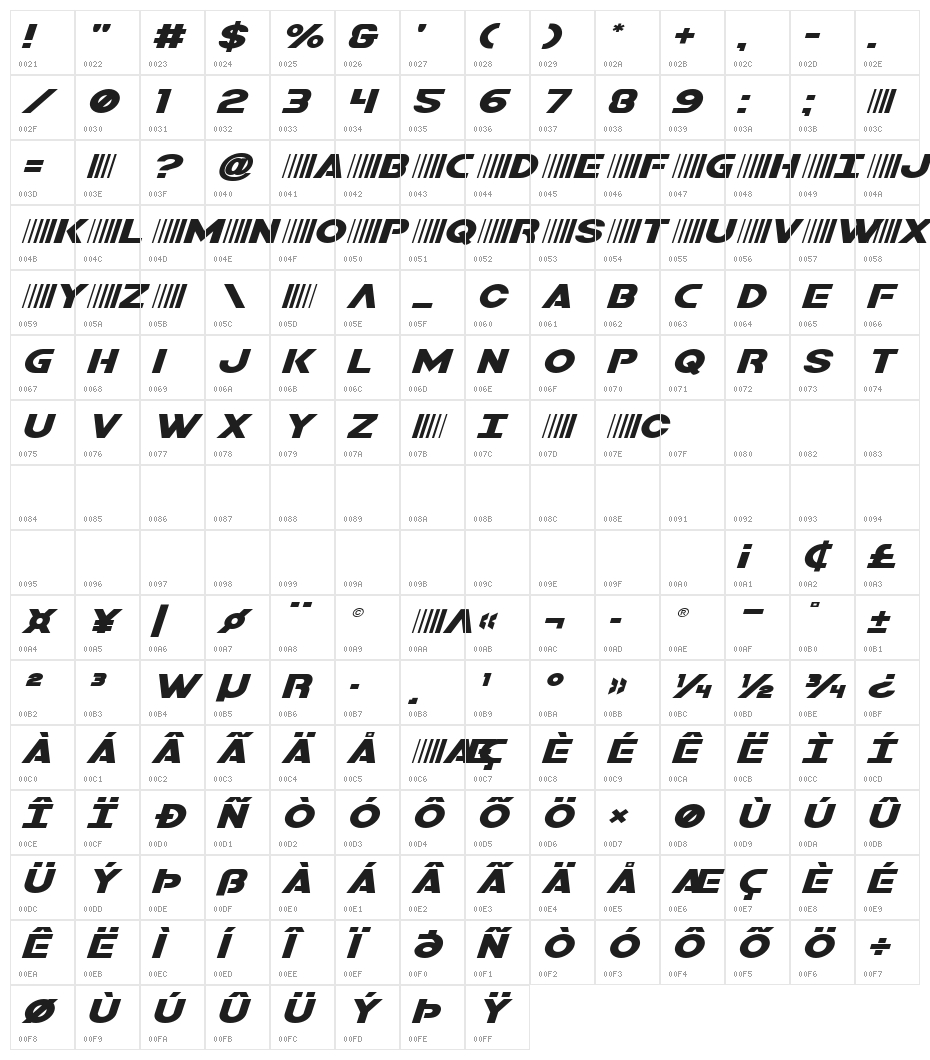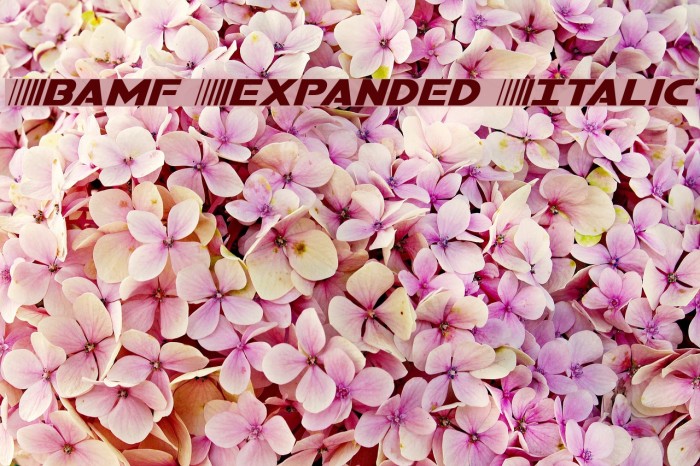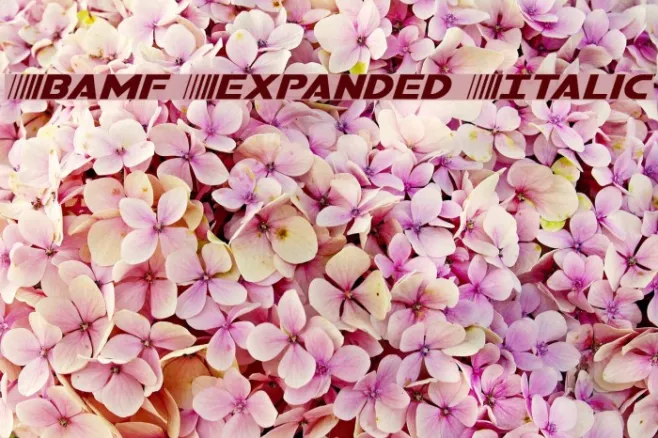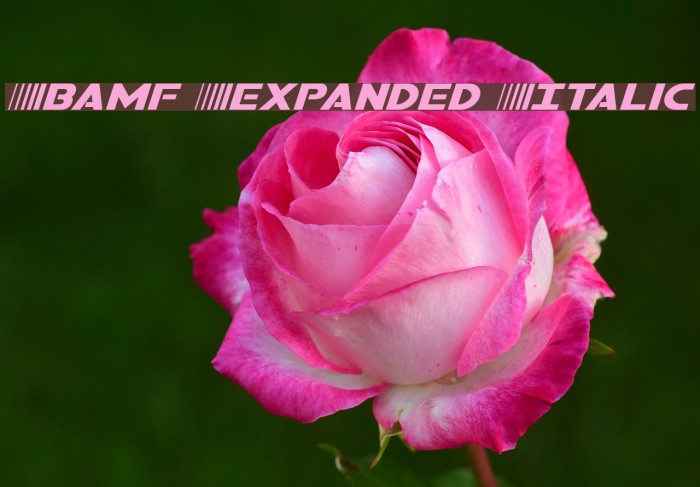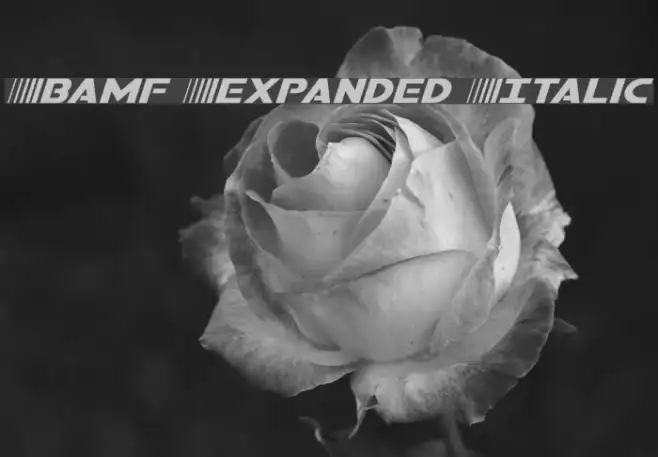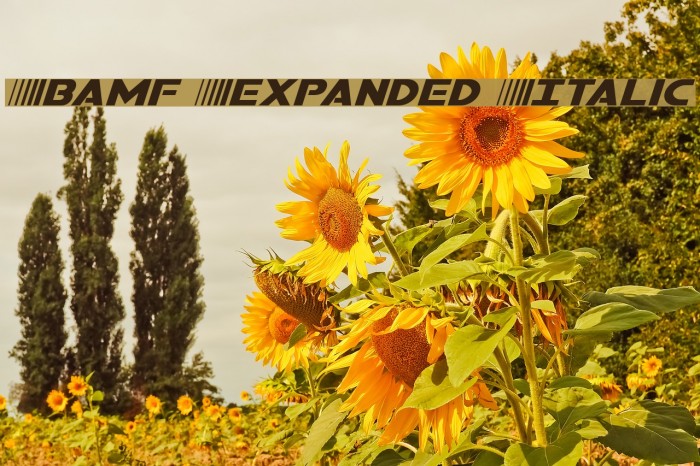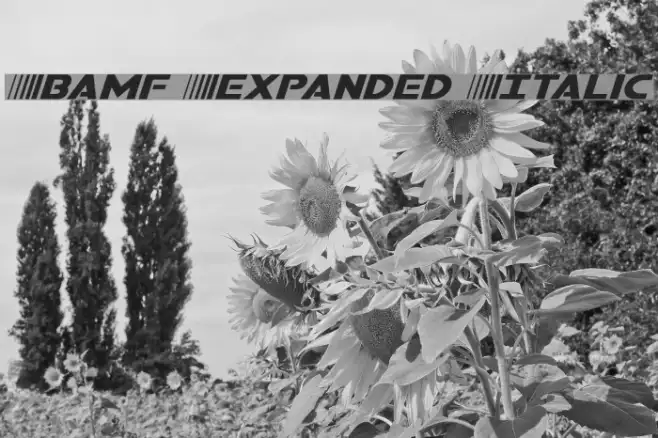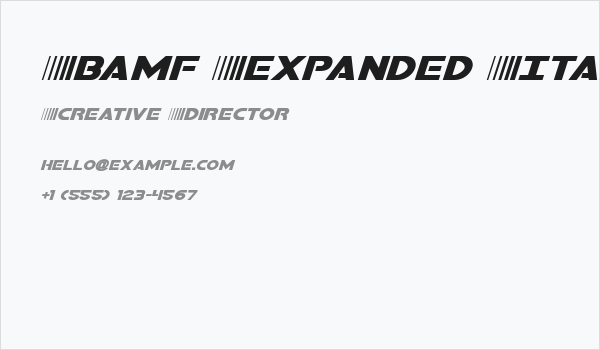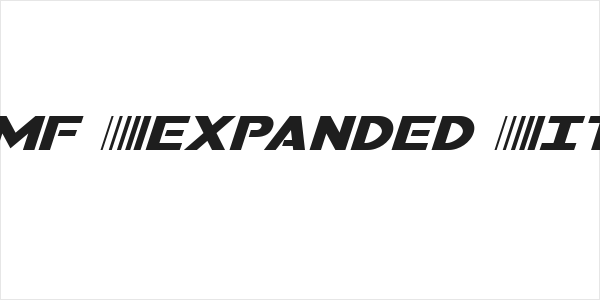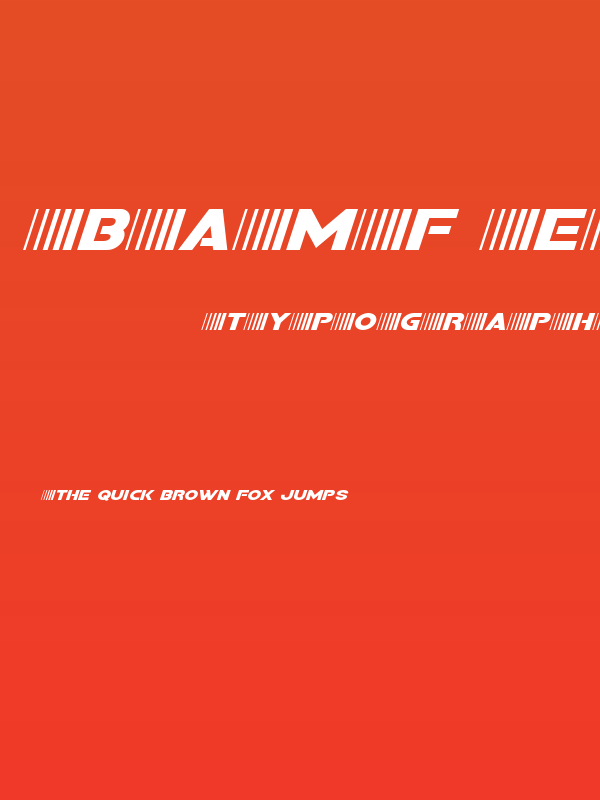
Bamf Expanded Italic Font
Bamf Expanded Italic Description
This font features a bold and dynamic style with a distinct italic slant, giving it a sense of motion and energy. The characters are wide and expanded, providing a strong visual impact. The uppercase letters are particularly striking, with sharp angles and a futuristic appearance. The numerals and special characters maintain the same boldness and slant, ensuring consistency across all elements. This font is ideal for projects that require a modern and assertive look, such as technology branding, sports team logos, or dynamic advertising campaigns.
| Use Case | Logos, Headlines, Advertising |
| Proposed Projects | Ideal for technology branding, sports team logos, dynamic advertising, and modern design projects. |